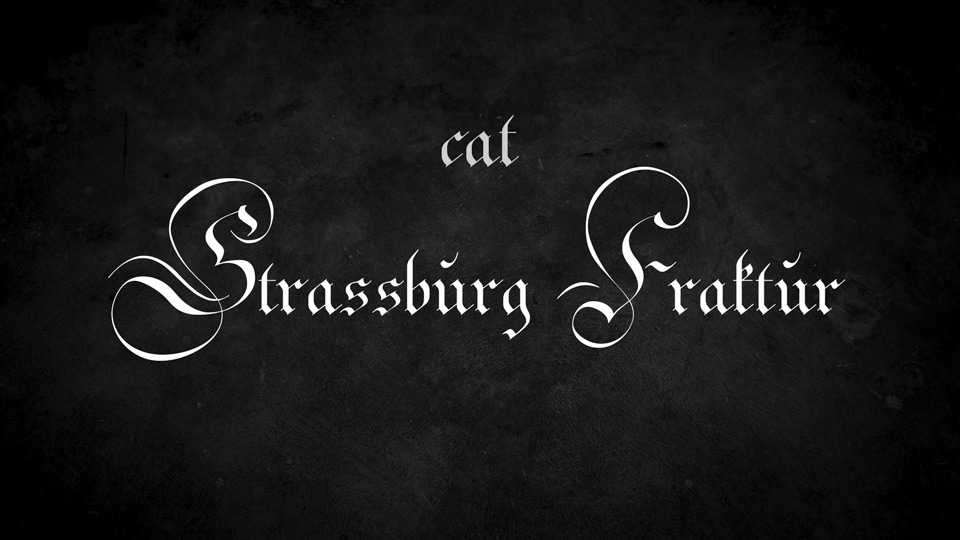
Download Strassburg Fraktur font, an ornamental blackletter typeface, not a typical print fraktur, but a handwritten variant. Strassburg Fraktur is suitable for printing templates for your own works with pen and ink.